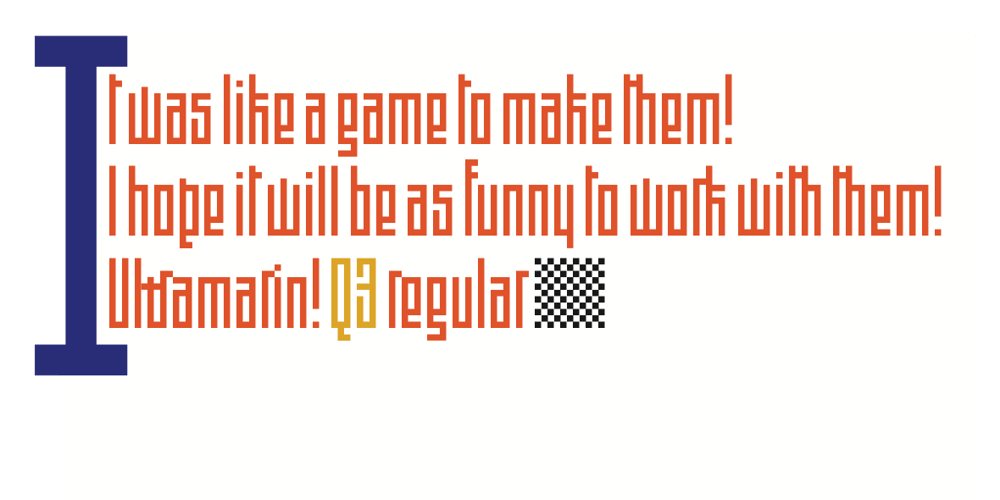
Q3 font
Q3 Font Family was designed by Finn Sködt and published by Ultramarin. Q3 contains 3 styles and family package options. The grey-tone of a medieval Textura in a modern digital or total modular design was the starting point for drawing this font. It is good and clear in larger sizes as headlines and a single word. But it also functions as it was thought for writing the evangelist St. Mark, or Don Quixote, even tag lines for a chemistry factory. Completion of the total font-set was like a game, it is fun to work with.